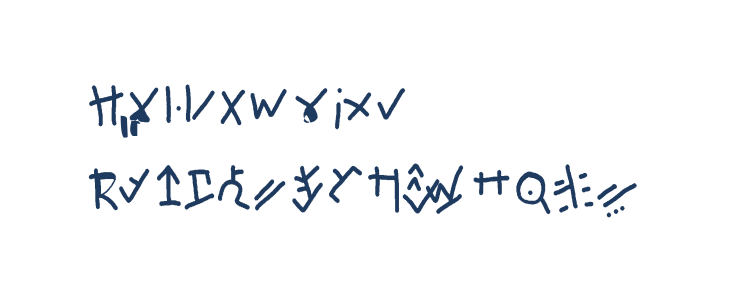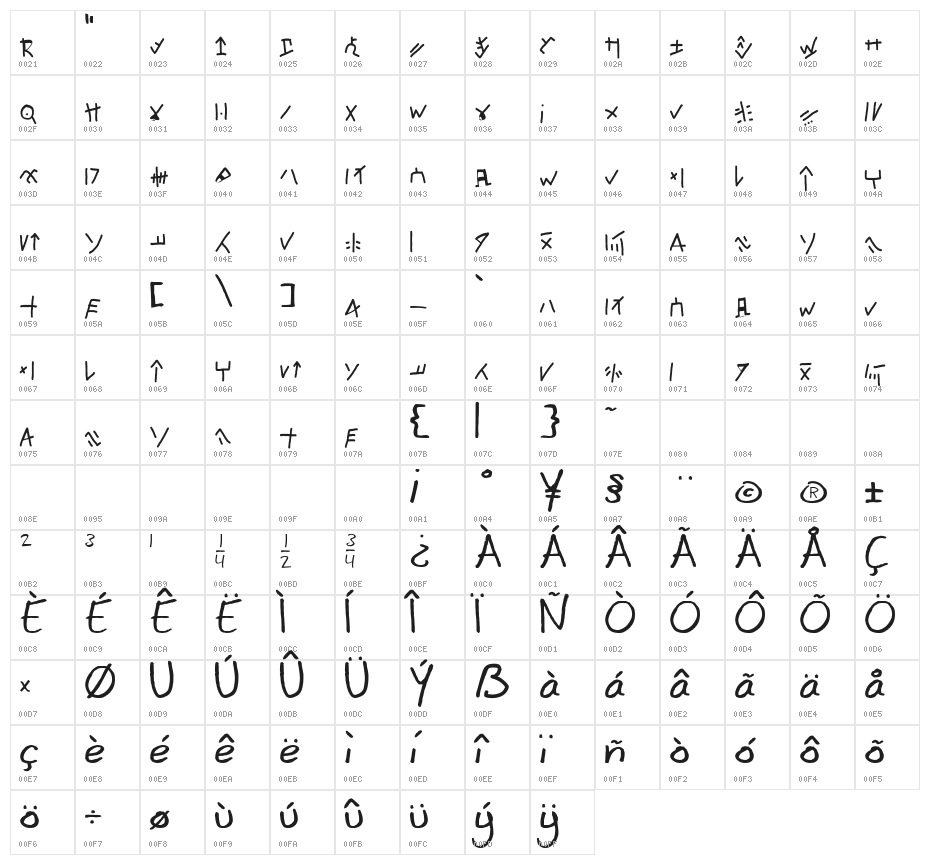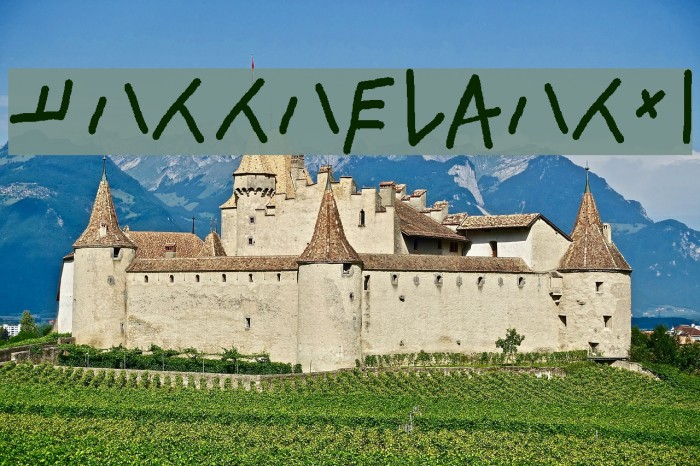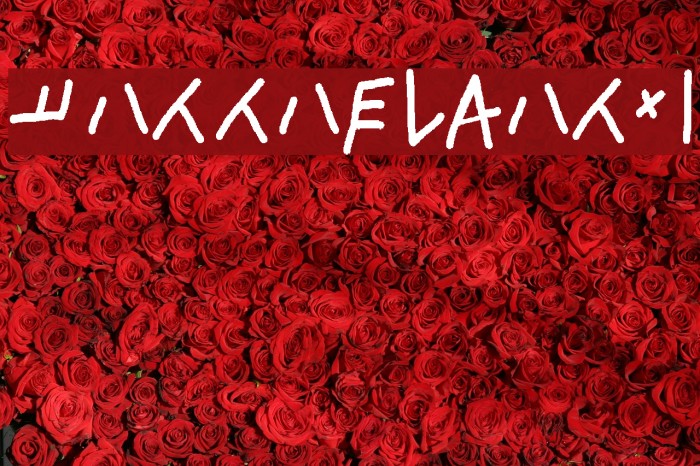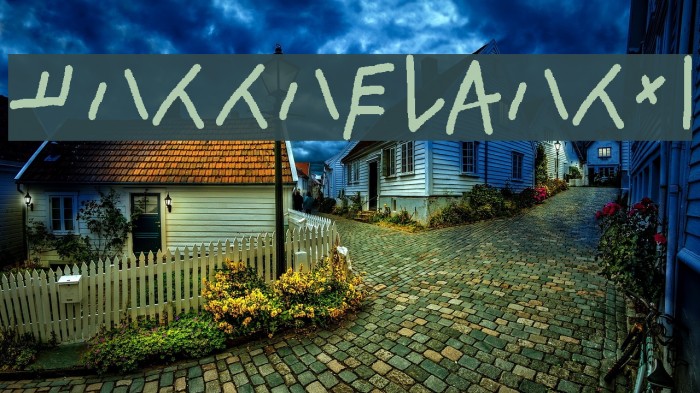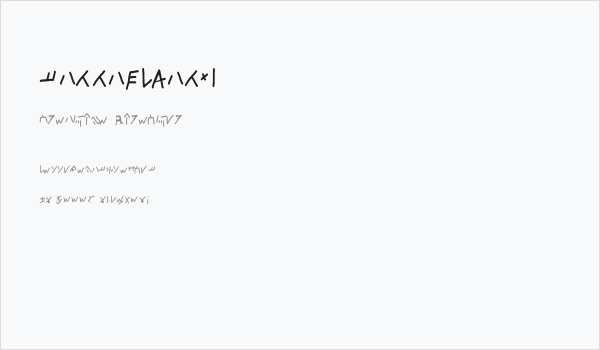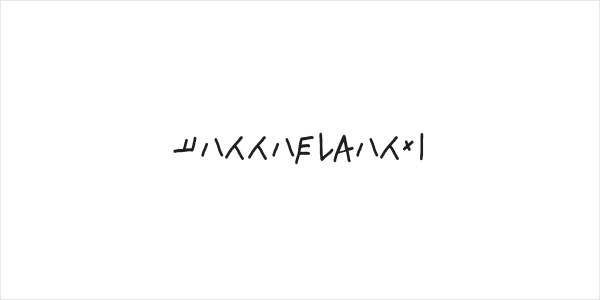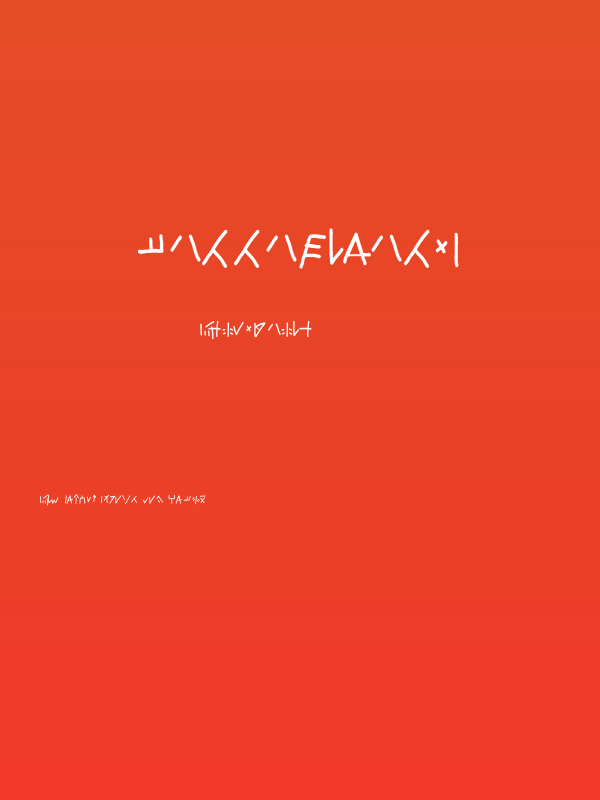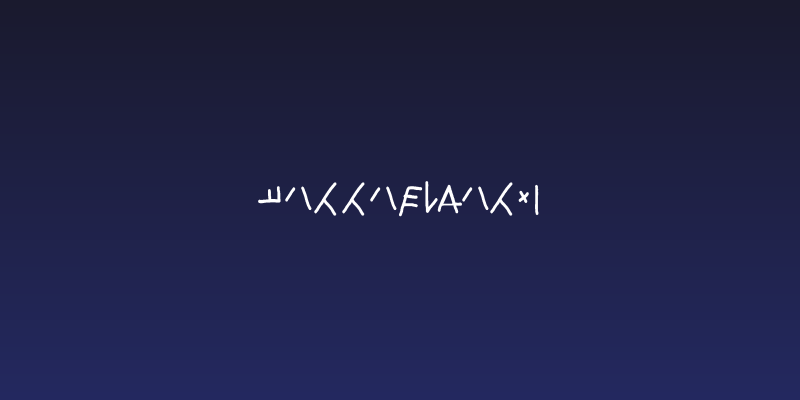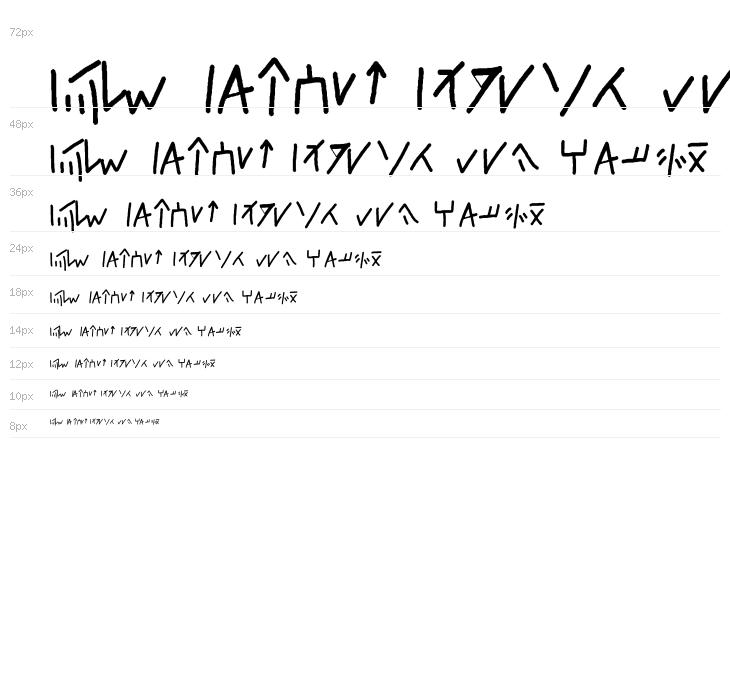
mannazhuang Font
mannazhuang Description
This font features a unique, hand-drawn style that resembles ancient runic or symbolic writing. The characters are composed of bold, uneven strokes, giving them a raw and organic appearance. The letters vary in size and alignment, contributing to a dynamic and informal aesthetic. This font lacks uniformity, with each character appearing as if it was individually crafted, adding to its charm and distinctiveness. The overall impression is one of mystery and antiquity, making it suitable for projects that require an unconventional and artistic touch.
| Use Case | Logos, Posters, Artistic projects |
| Proposed Projects | Ideal for artistic projects, fantasy-themed designs, or any work requiring a mysterious and ancient aesthetic. |